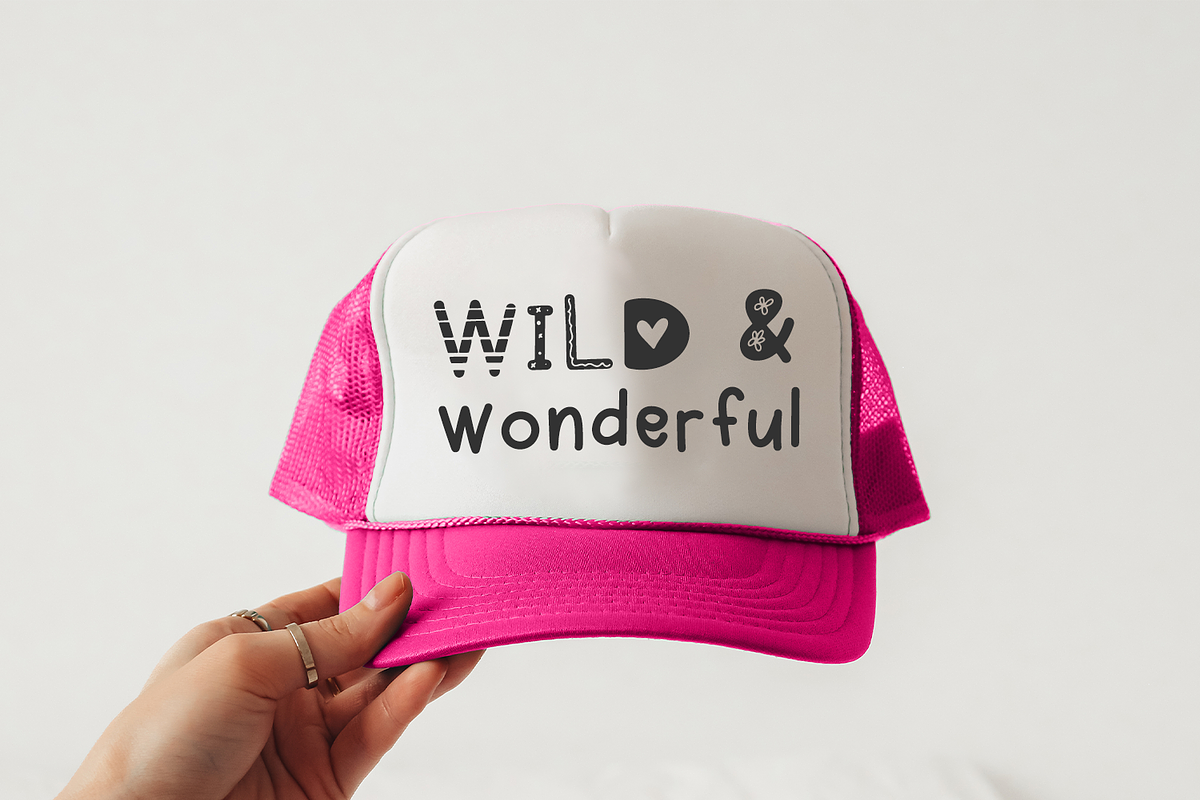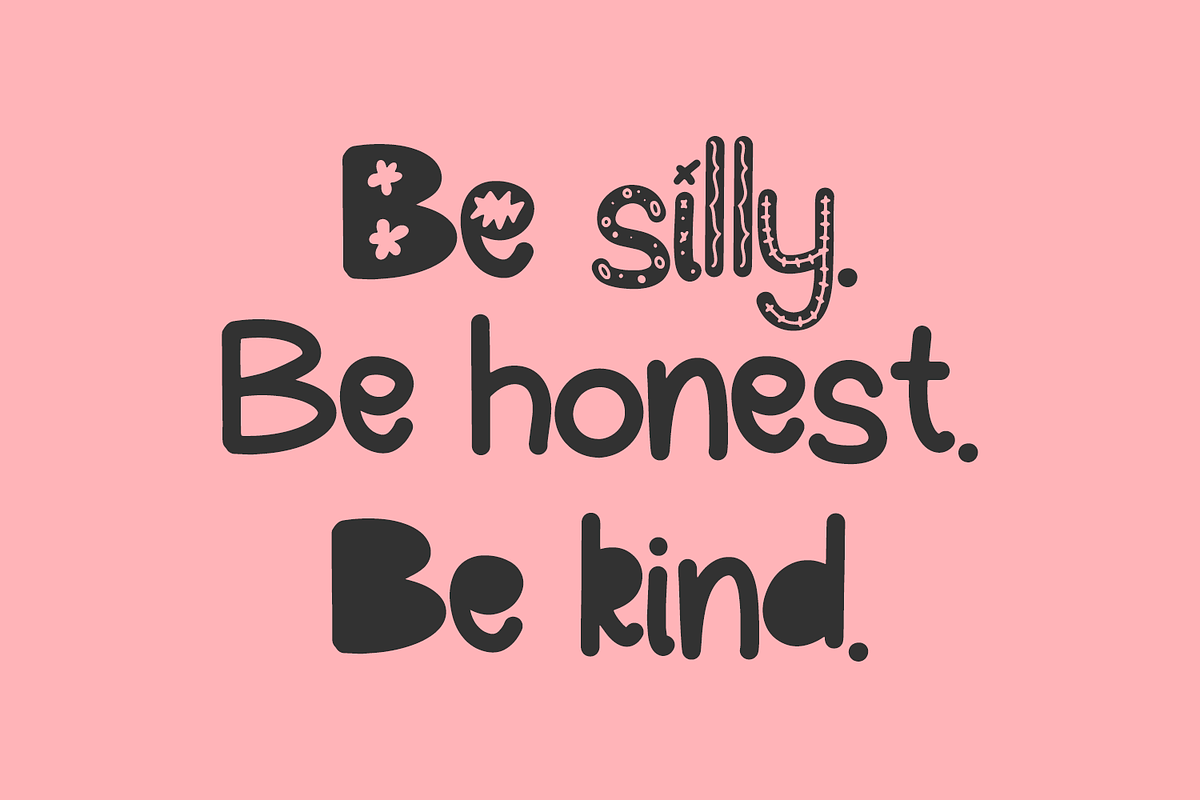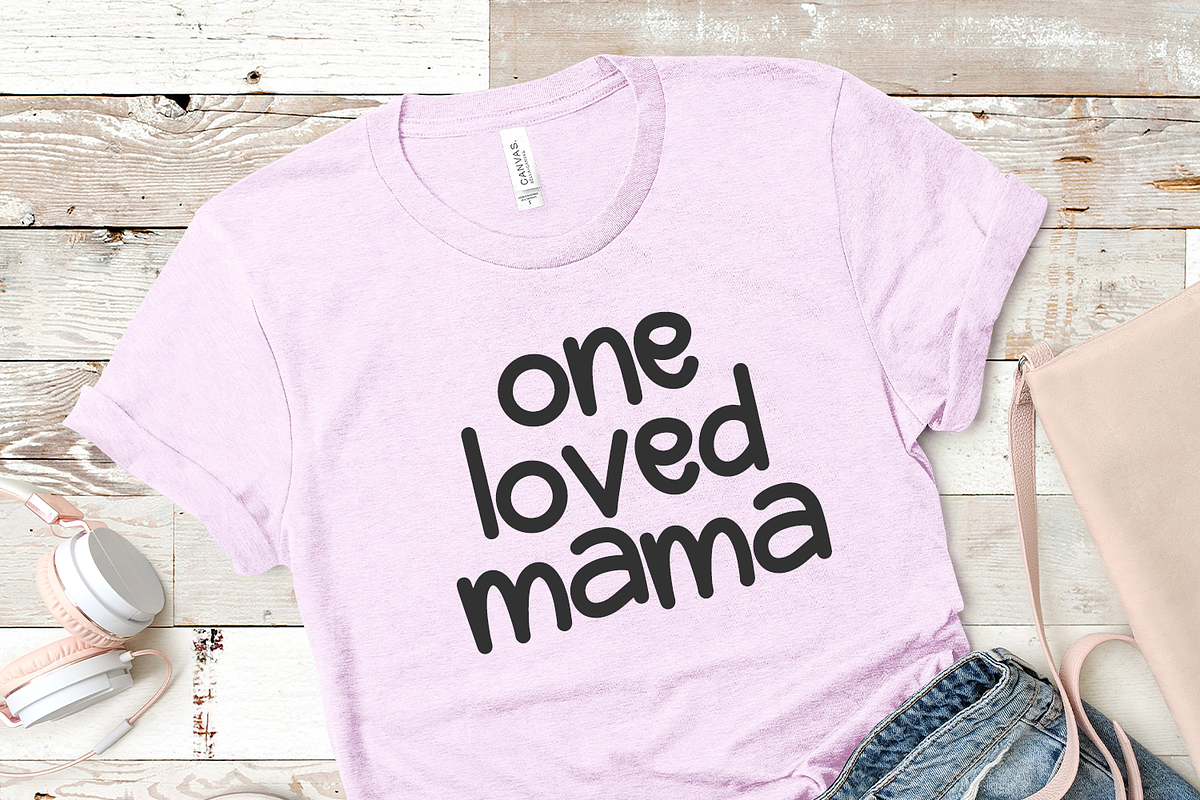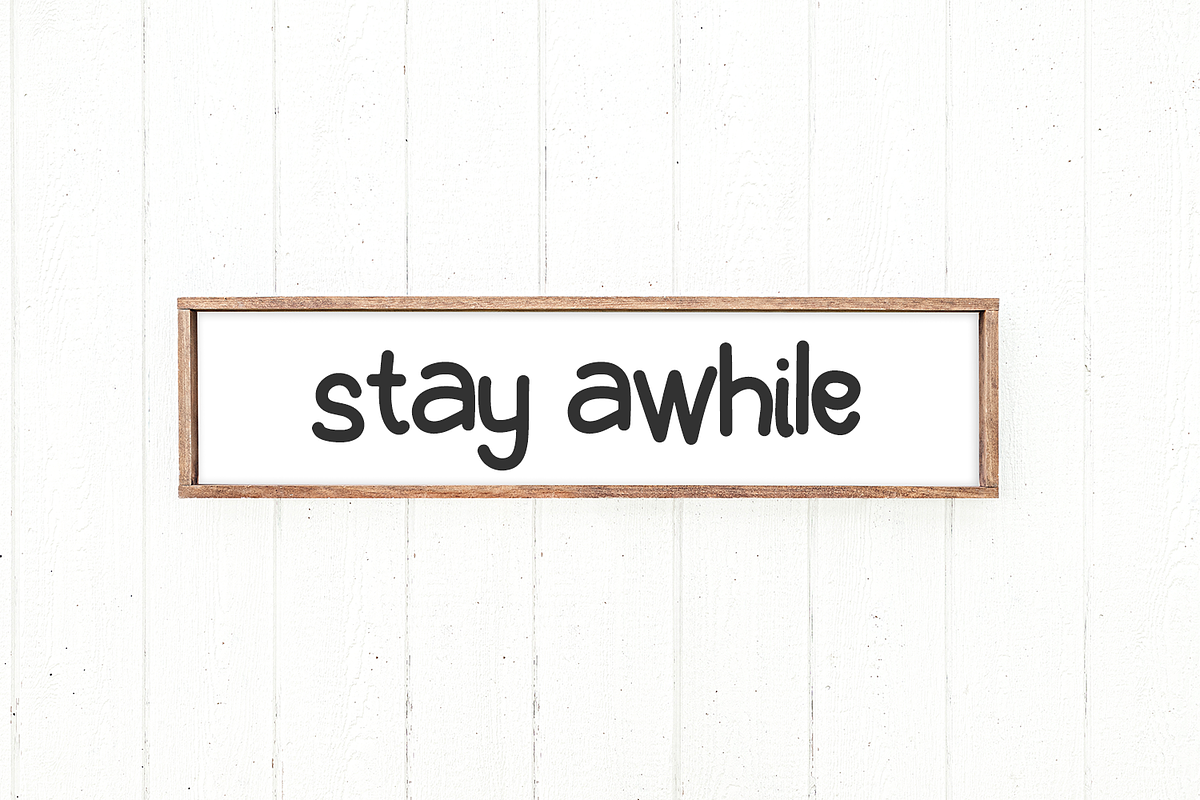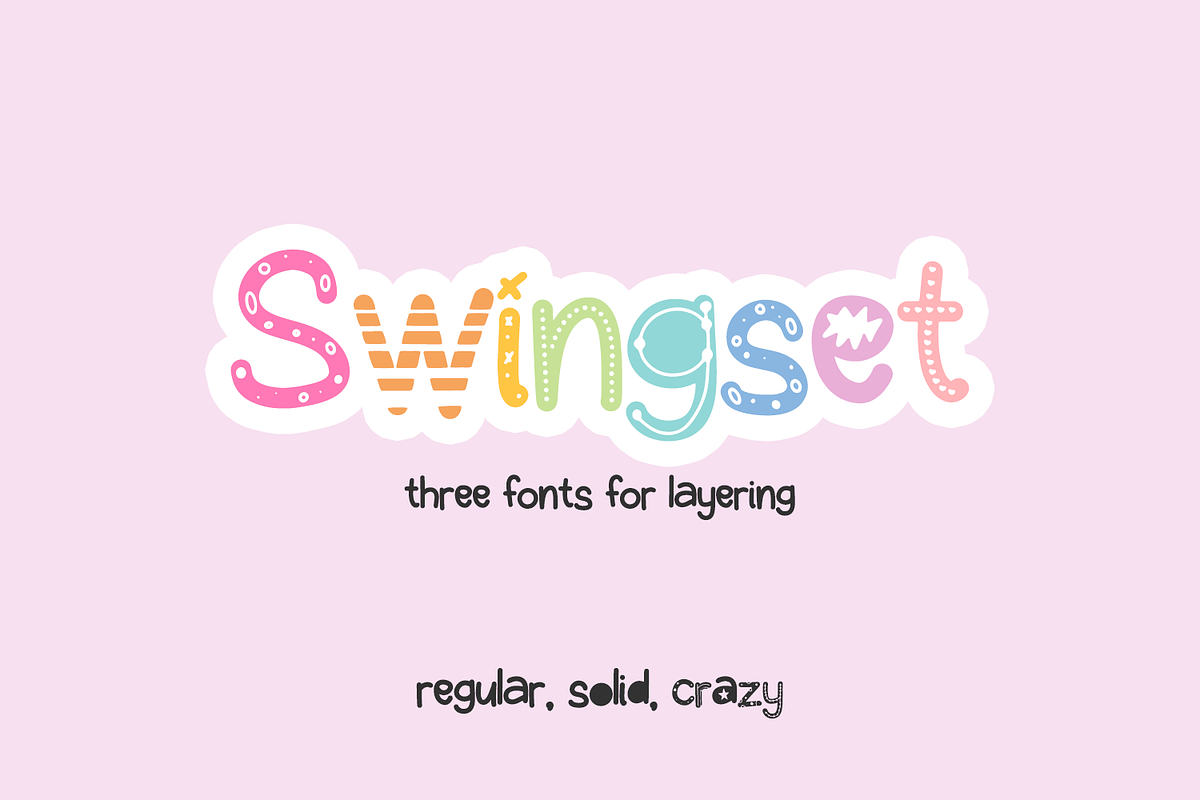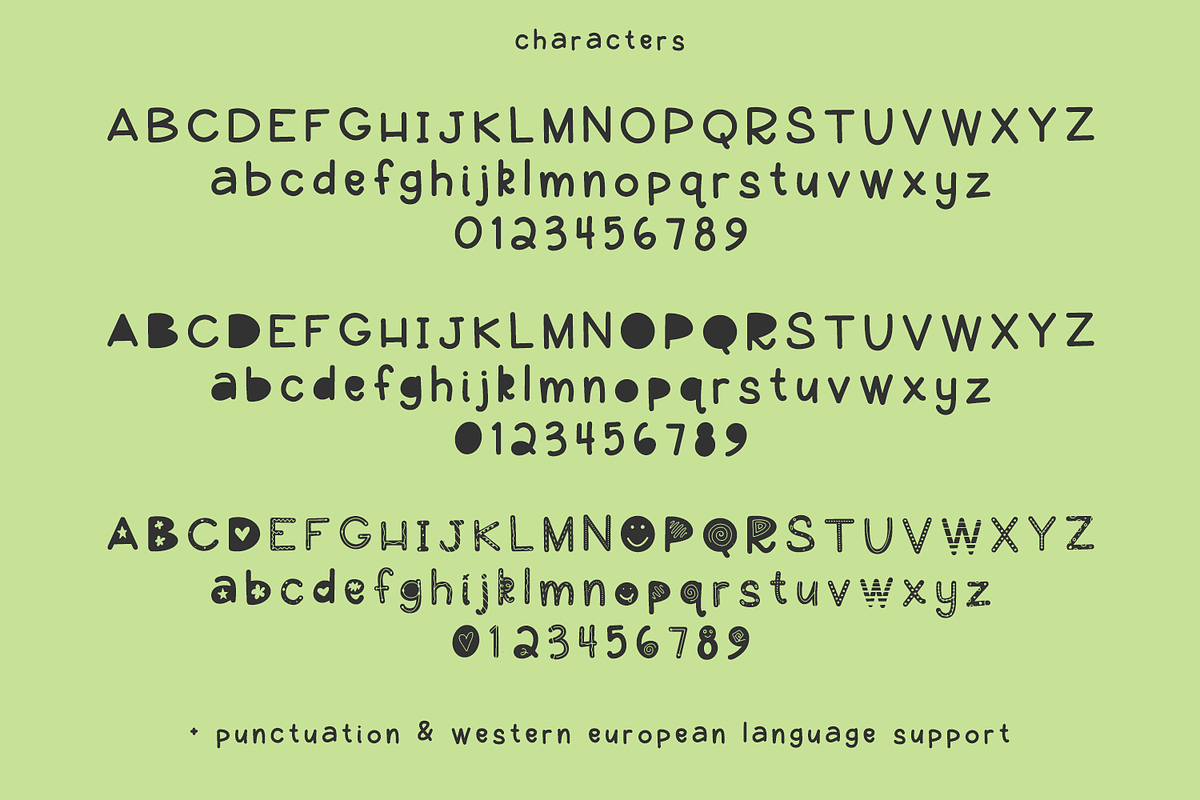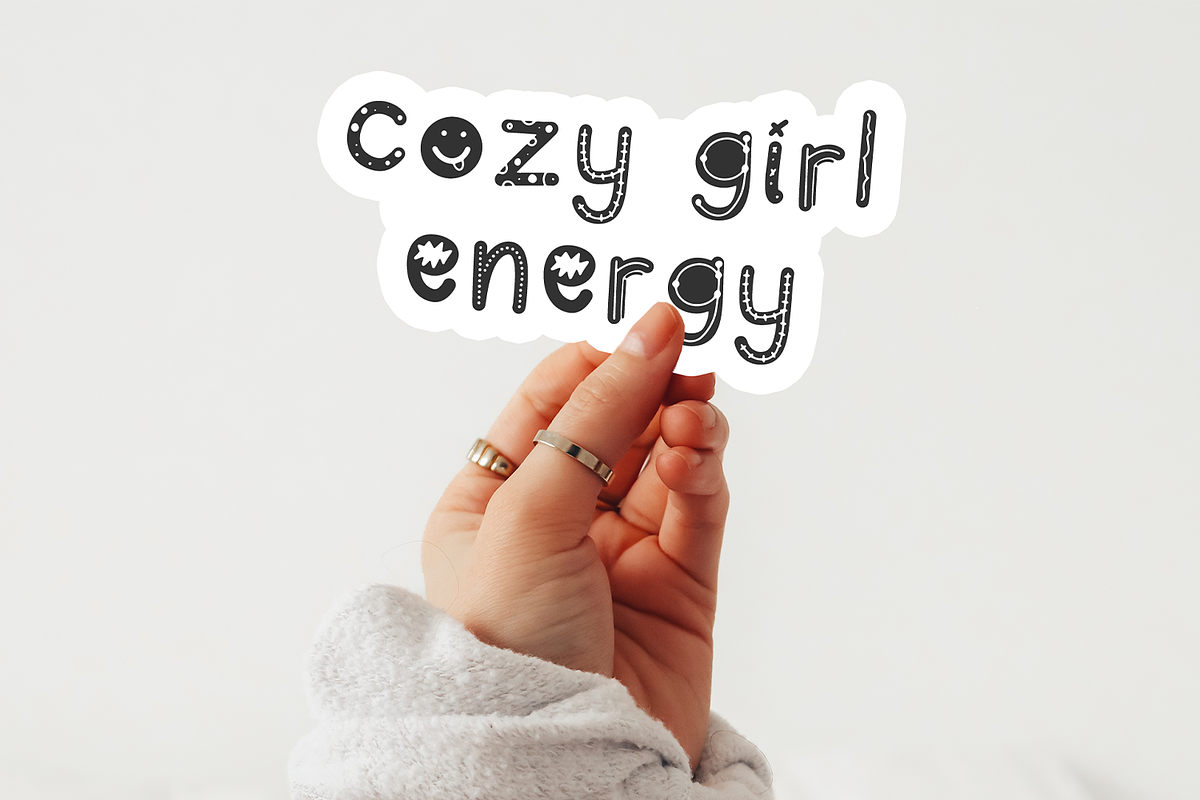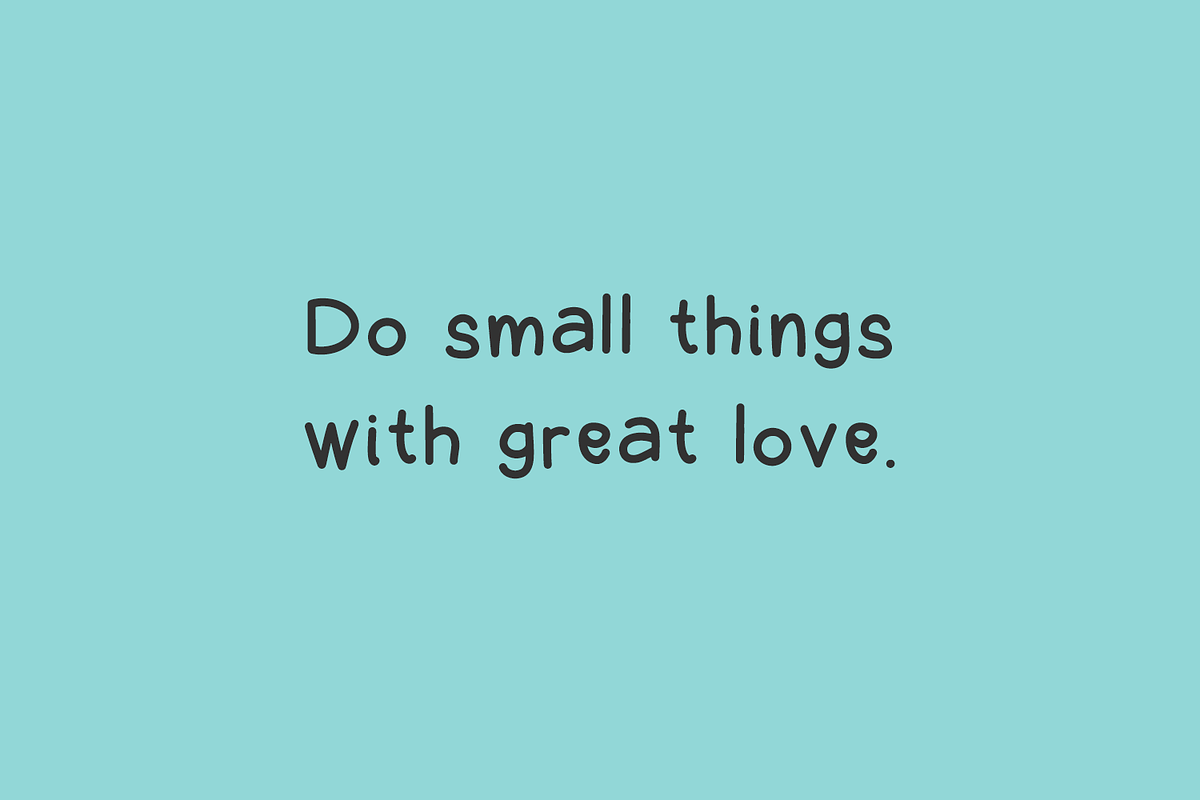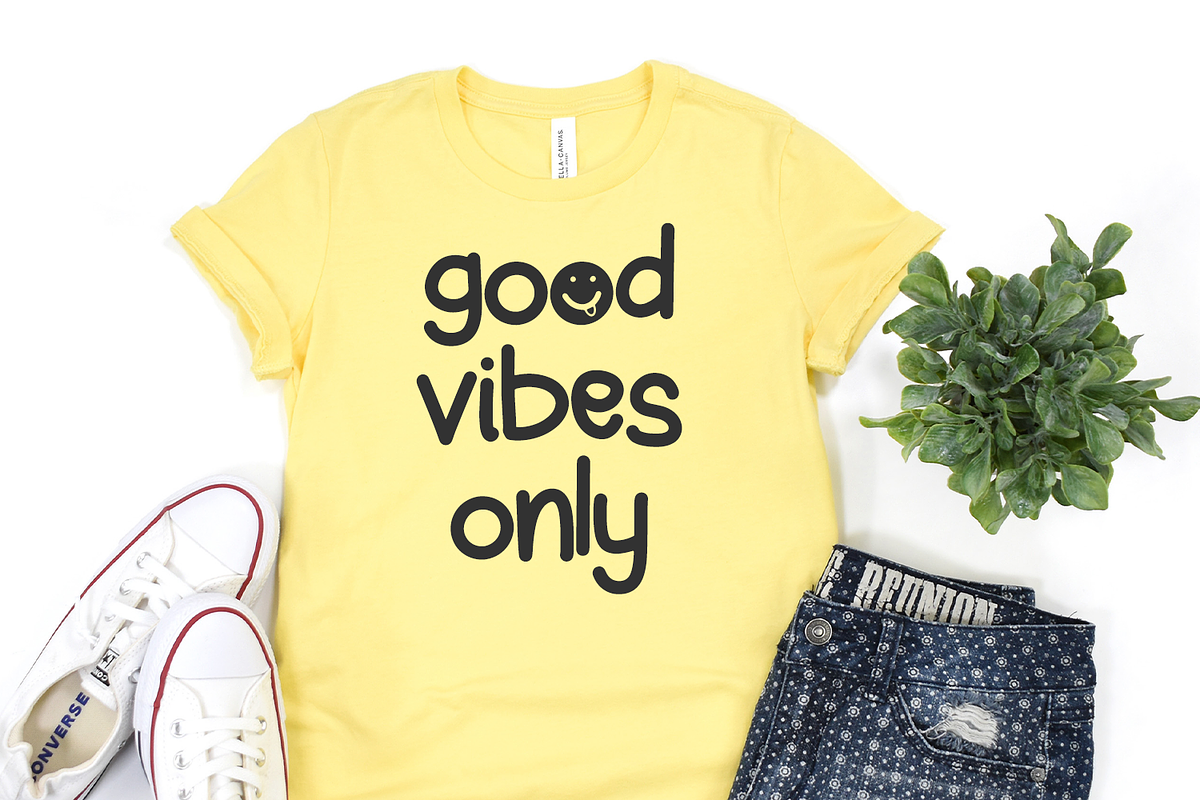
Swingset Sans - Font Trio
Introducing Swingset Sans, a cute handwritten font in three versions: regular, solid, and crazy. The regular version of the font is just that - regular. The solid version includes blacked out letters, and the crazy version of the font includes letters with fun little decorations and doodles. You can use Swingset as individual fonts or use it in layers, or mix & match individual characters for your project.
This font is neat & tidy. Because of this, it would make a great addition to a teacher’s font collection, children’s books, or classroom decor. It could also be used for handwriting practice for young learners, or people who want to improve their printed handwriting. Swingset Sans is also perfect for logos & branding, greeting cards, painted banners, digital planners, note-taking apps, Canva, Cricut projects, Silhouette projects, designing SVG files, laser cutting projects, & more.
Each font in the Swingset Sans trio includes:
- full upper + lowercase characters
- numbers + punctuation